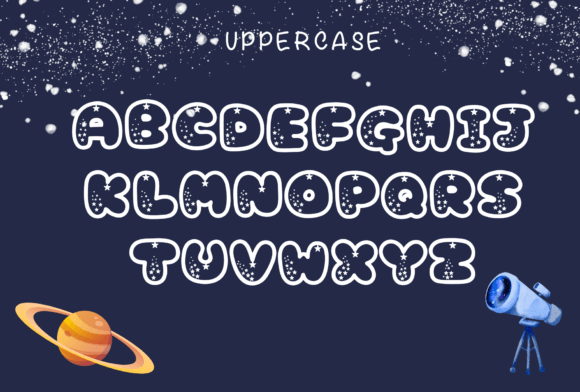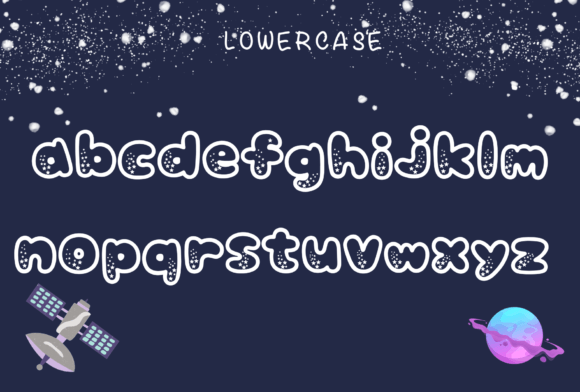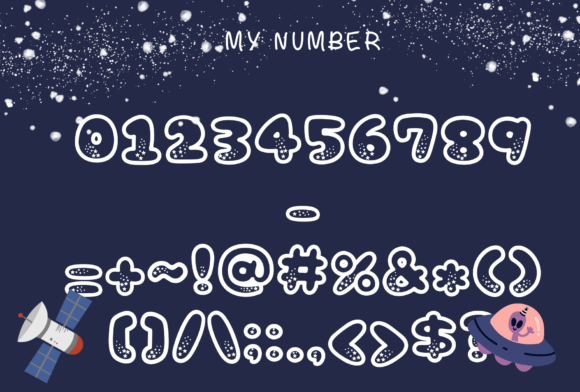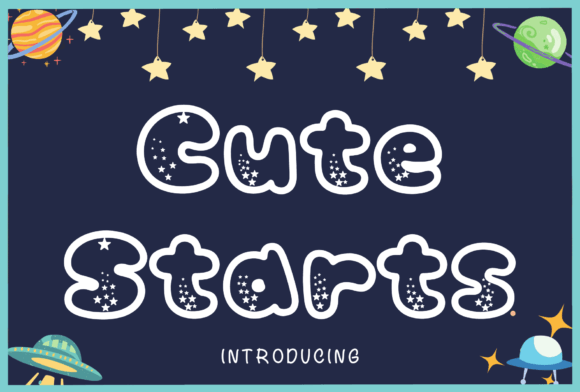
Introduction to Cute Starts Font
Cute Starts is a bold and playful font that is sure to grab attention.
With its chunky letterforms and vibrant energy, this font is perfect for headlines, posters, and any design project that needs extra cuteness .
Key Features of Cute Starts Font